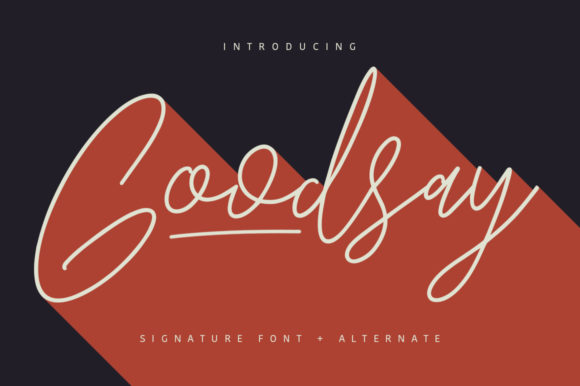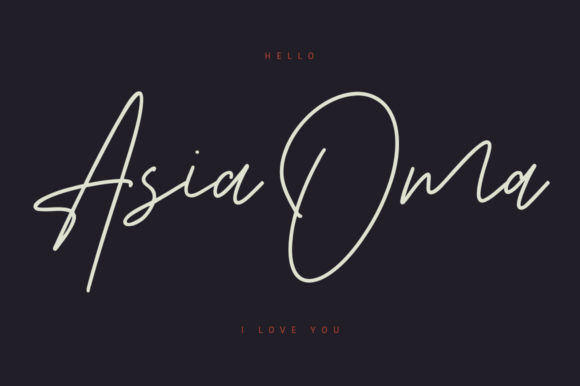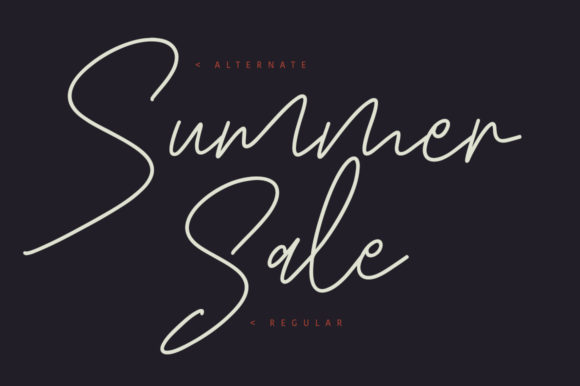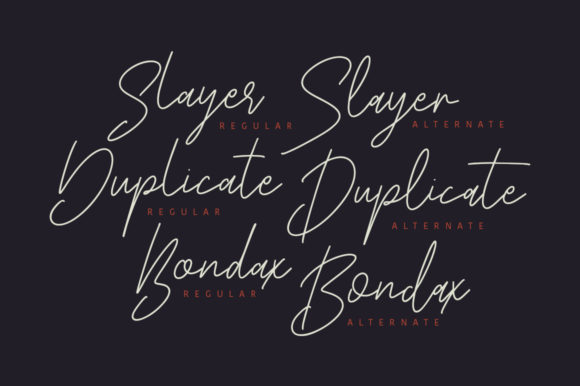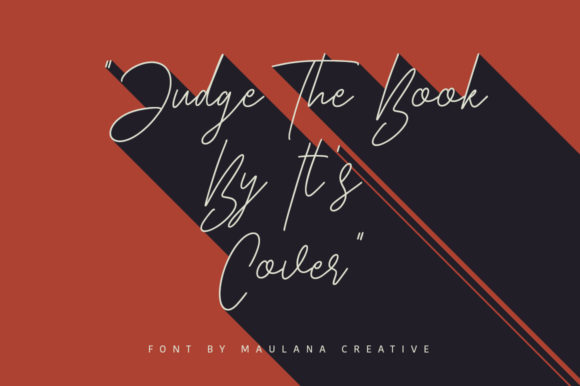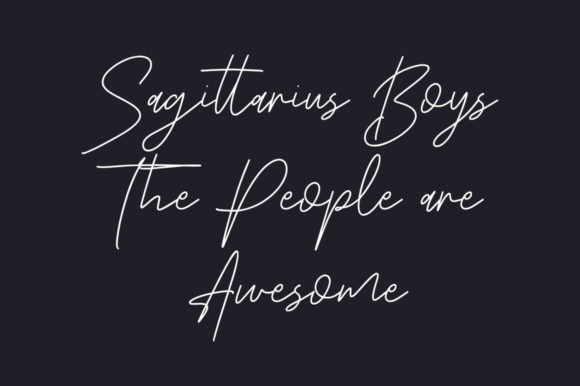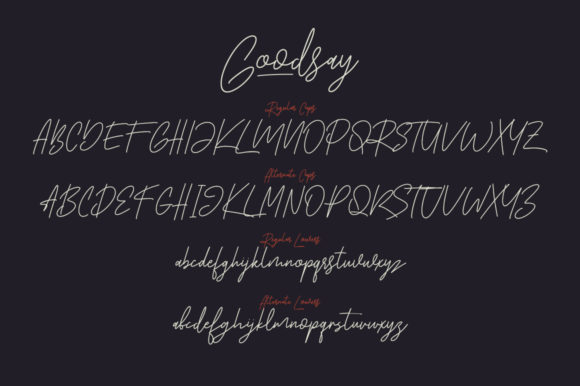
Goodsay Font
About Goodsay Font
Goodsay is a simple, thin and flowing handwritten font. Relaxed and elegant, this font will make each of your designs look outstanding.